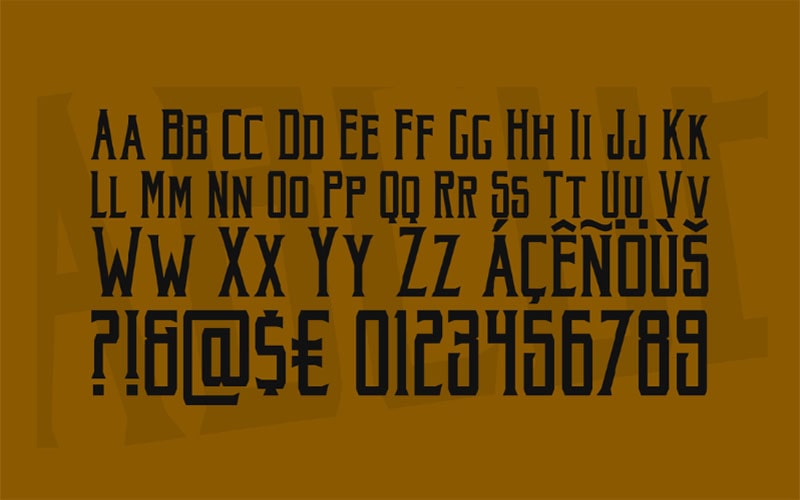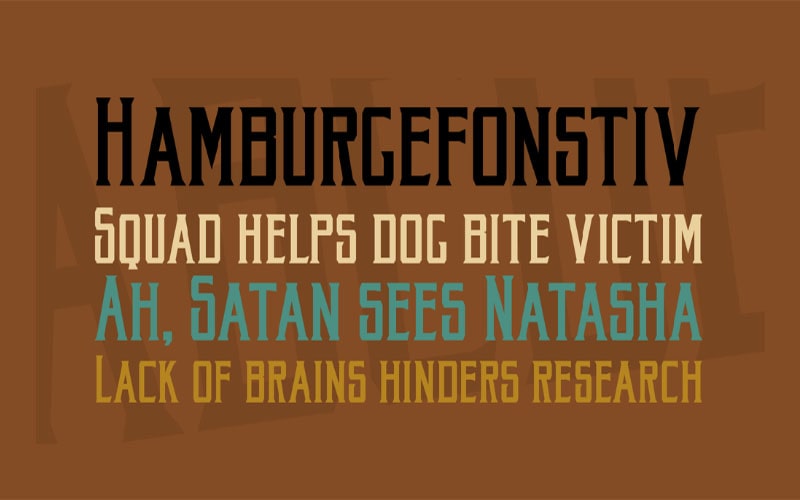
The Akura Popo Font is a striking typeface known for its bold, retro-inspired design that combines strength with vintage charm. Perfect for various creative projects, it adds a unique character and flair to any design it graces.
It was designed by Twicolabs Design, a creative studio known for producing high-quality, unique typefaces that stand out. Adds depth and dimension to the text, perfect for creating standout headlines and titles.
Twicolab Design has a reputation for creating fonts that blend nostalgic elements with contemporary trends, making their designs both timeless and modern.
Designed with careful attention to kerning and spacing, ensuring readability and visual harmony. Includes uppercase and lowercase letters, numerals, punctuation marks, and special symbols.
Akura Popo is available in a variety of styles that enhance its versatility and appeal. The styles are Akura Popo Regular, Akura Popo Shadow, and Akura Popo Inline.
The standard style, characterized by its bold and blocky appearance, is ideal for making a strong visual statement. Features internal lines within the characters, providing a vintage, handcrafted look.